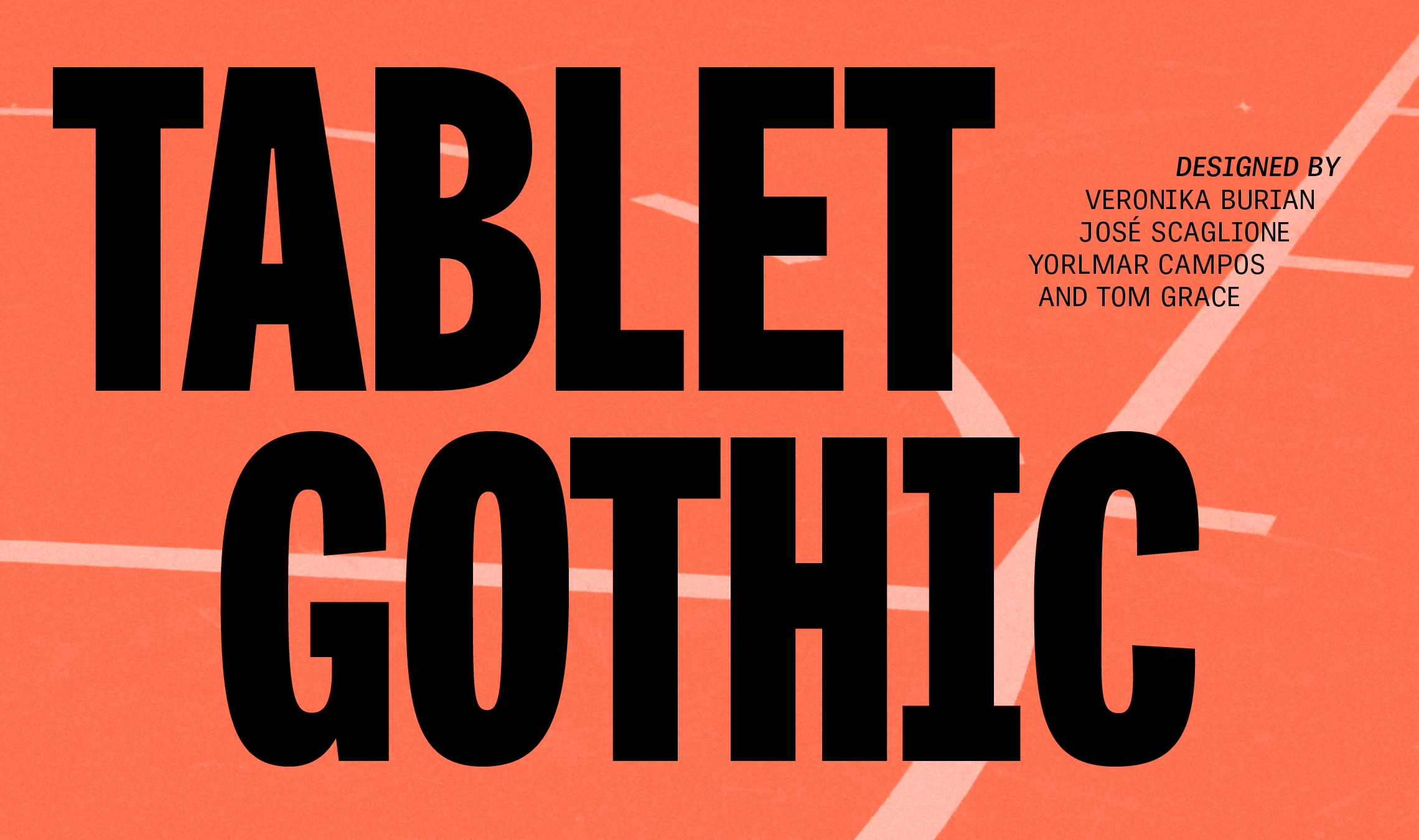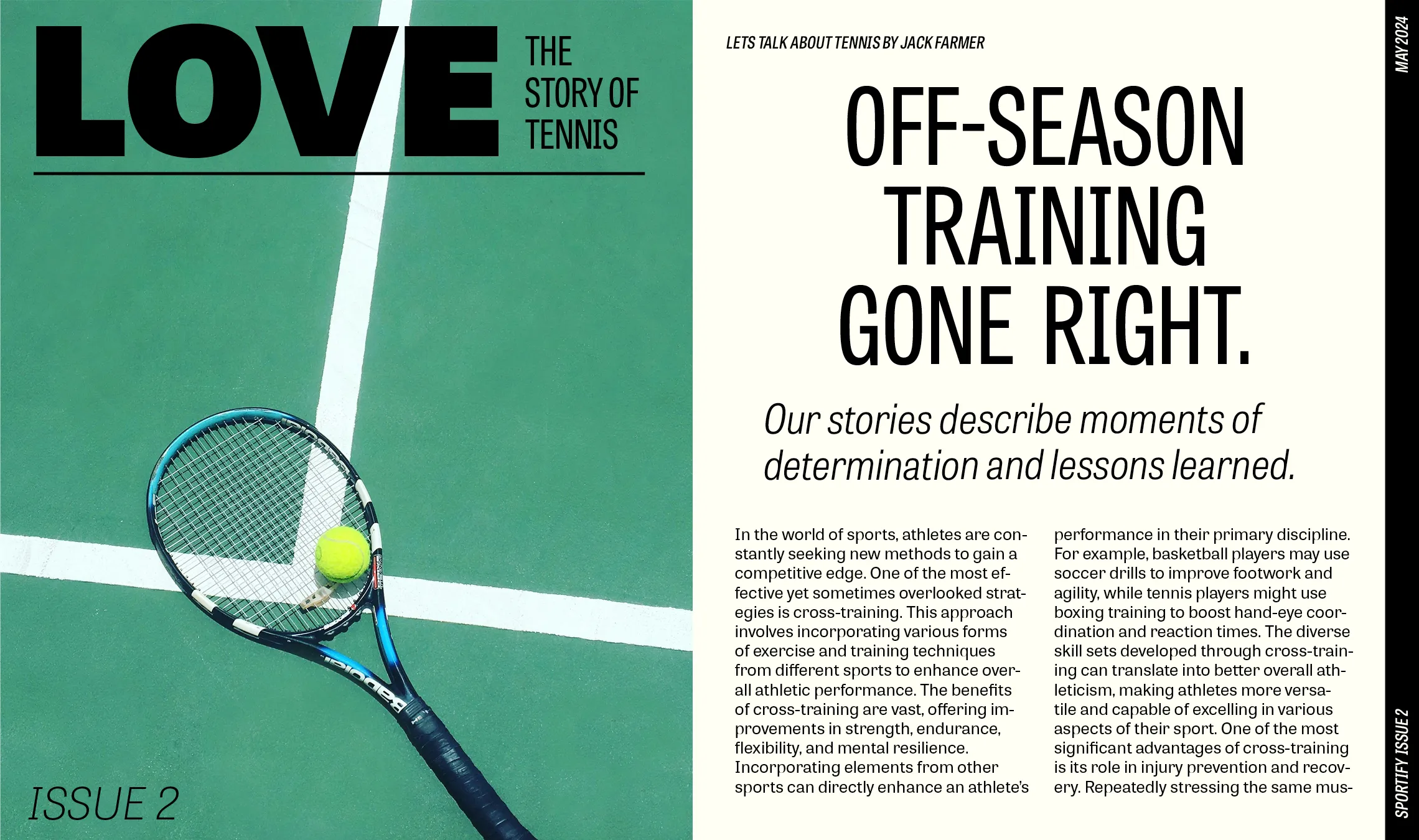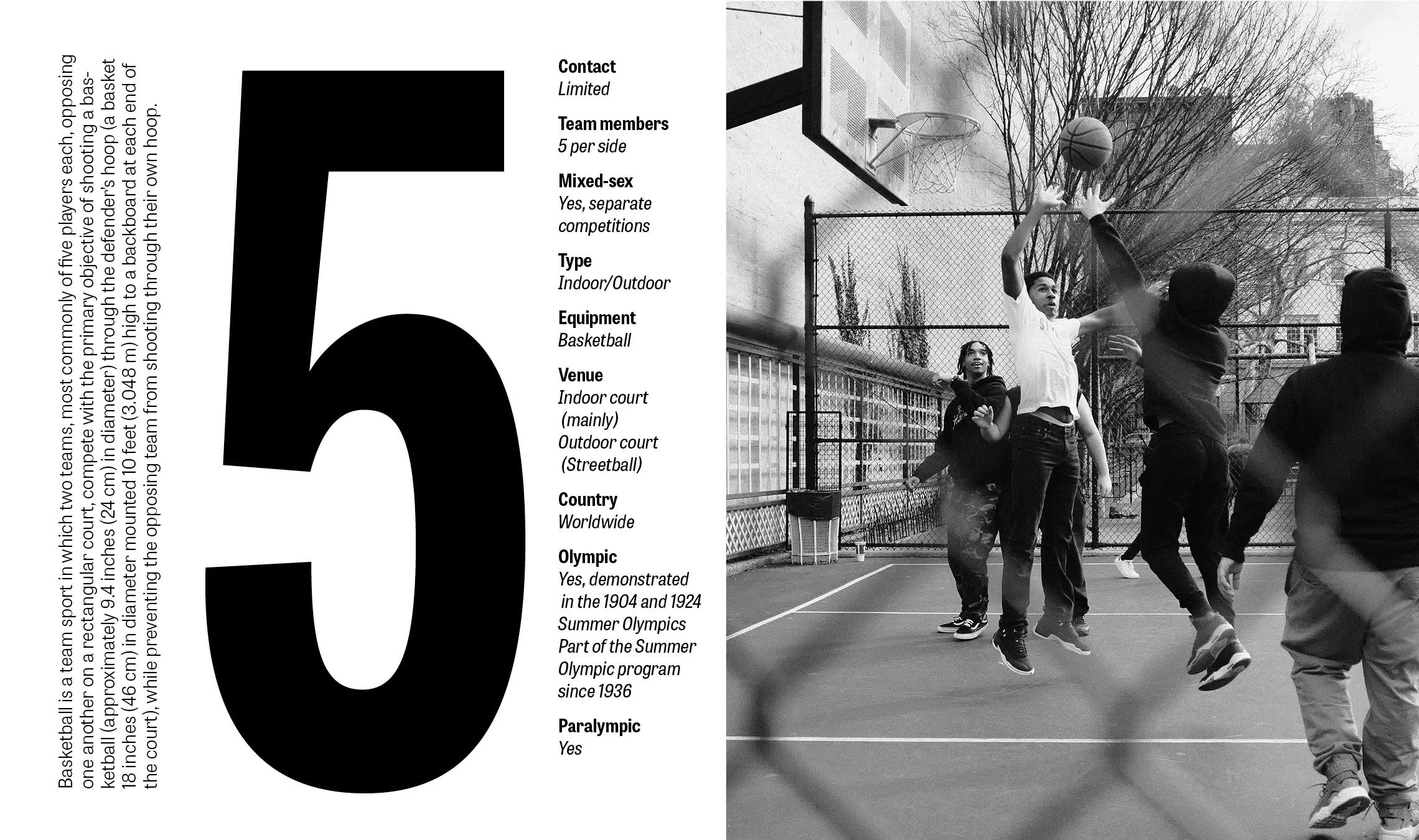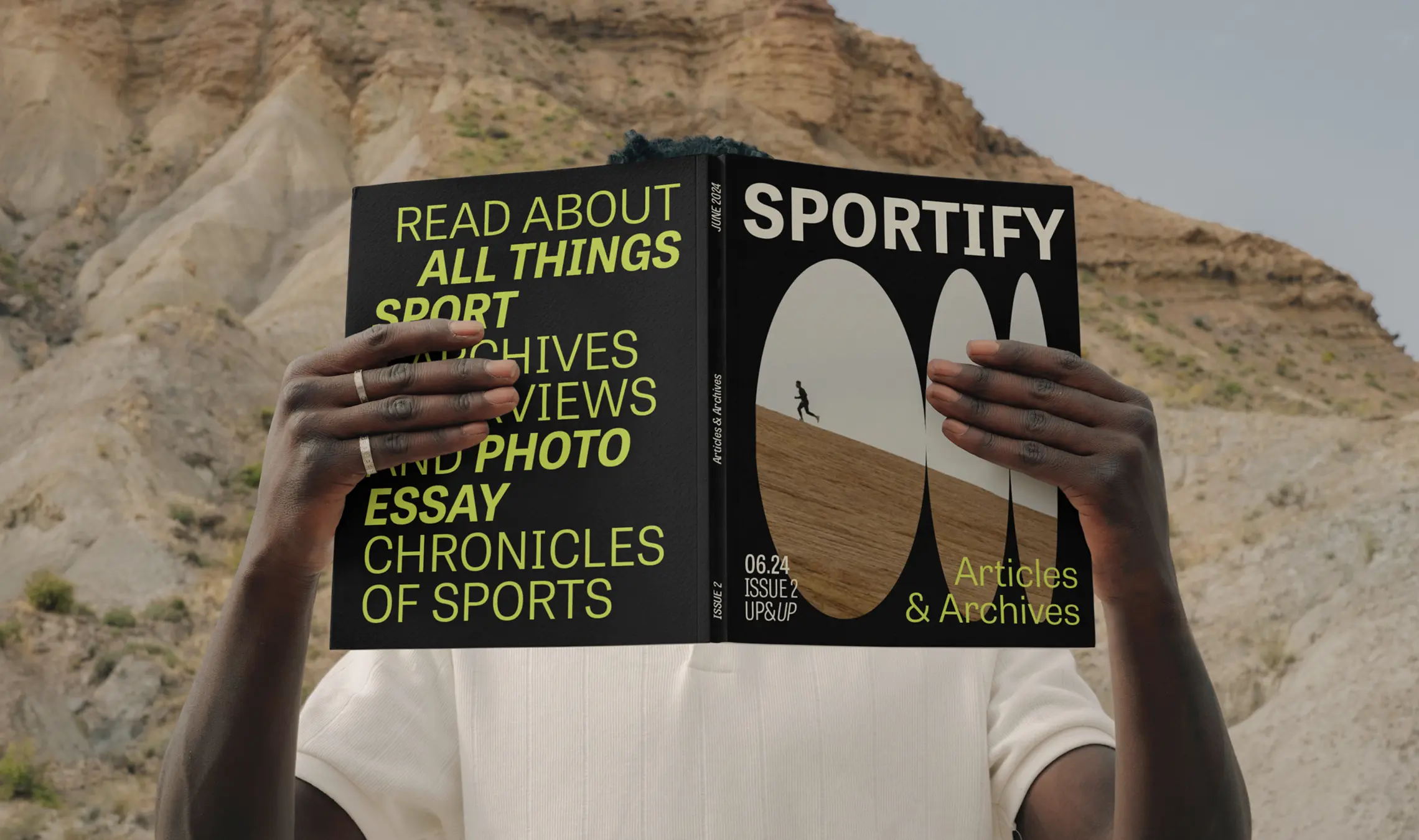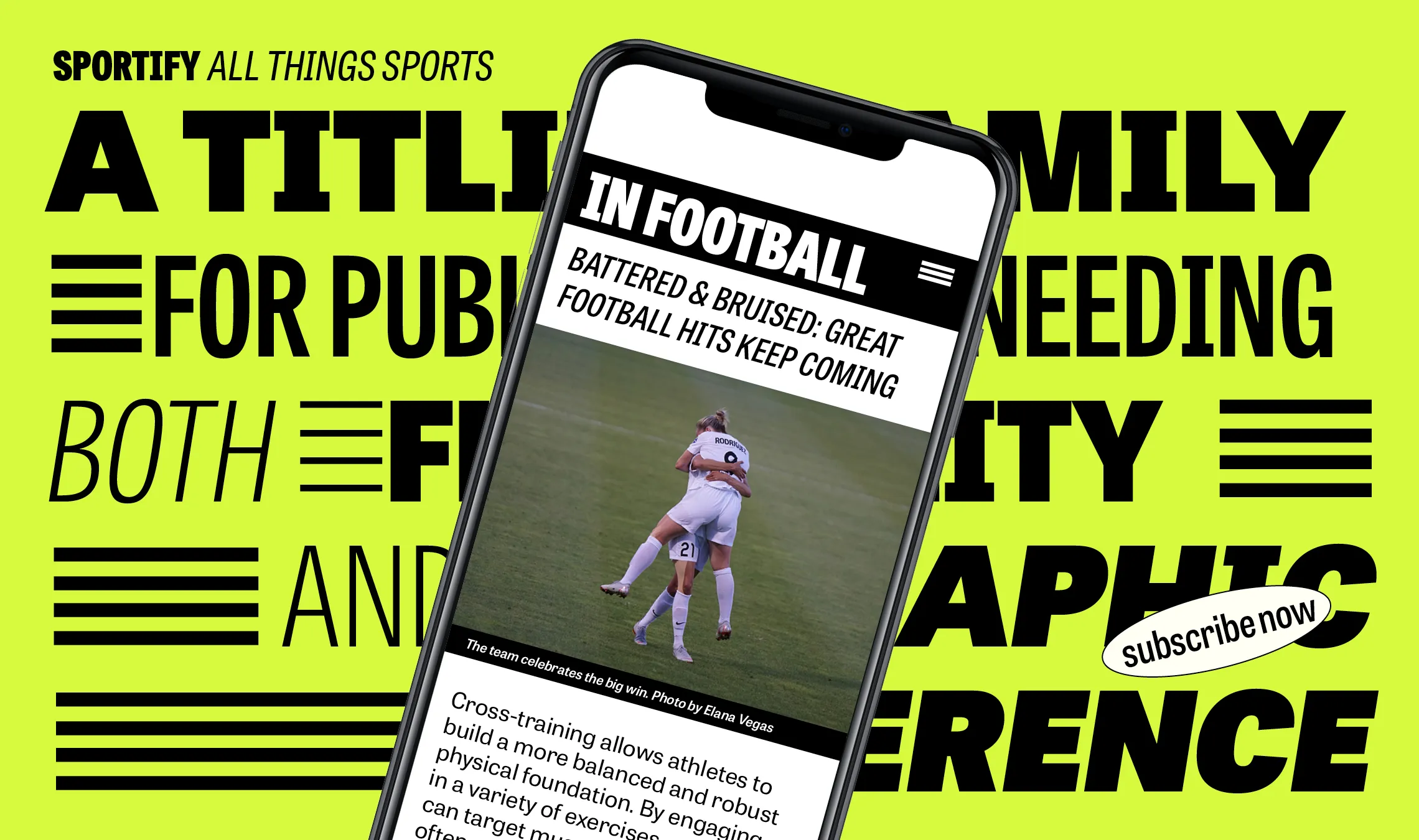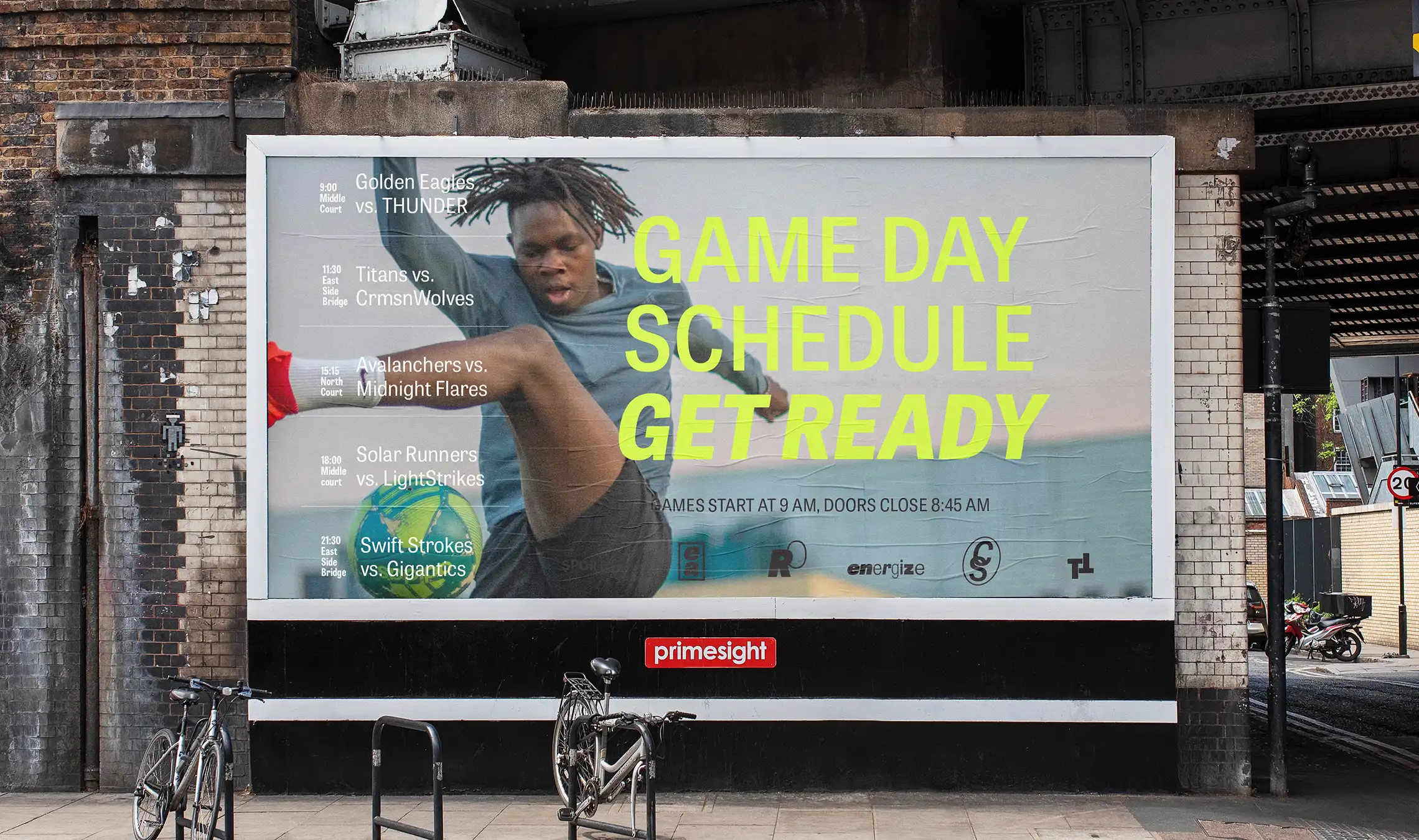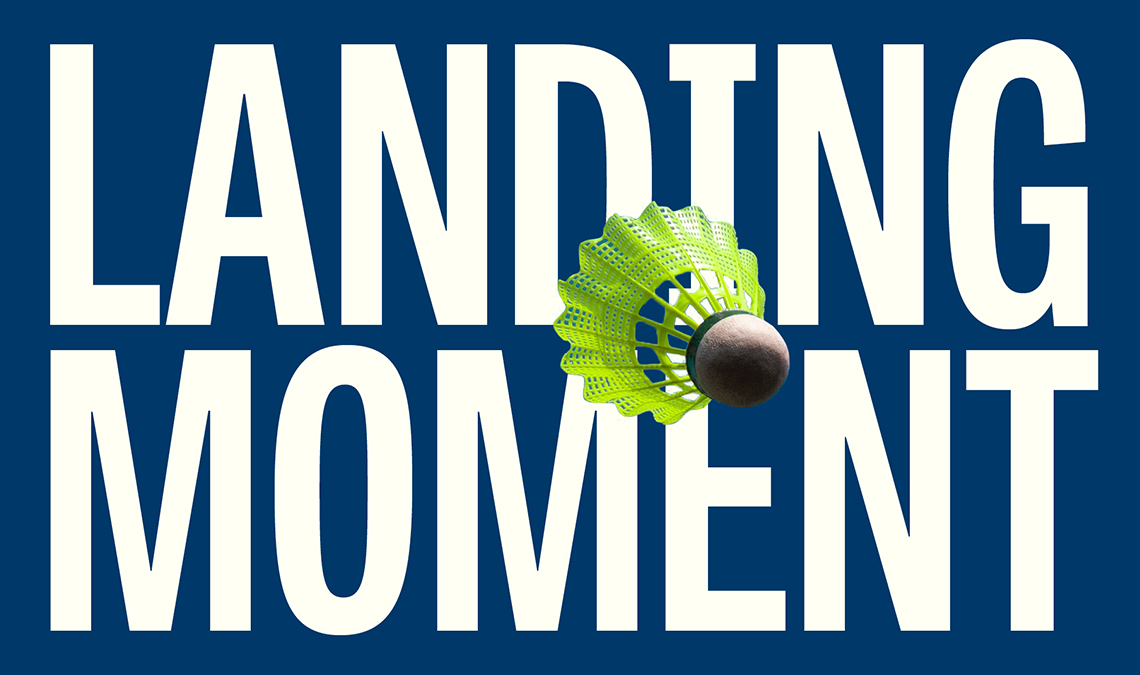
Tablet Gothic: major update, free
We are proud to announce a major expansion to Tablet Gothic! Twelve years ago we released this headliner family and it immediately made waves (and won awards) for its ability to speak with punch or with restraint due to its full-fledged widths and weights.
Today marks an expansion and refinement of the entire Tablet Gothic family. First up, we have remade the family from scratch with new master styles in the variable font format. This means the user can either choose from a static weight we have provided in OTF format or select any weight between the two extremes (Thin and Heavy) for a precise, dialed-in look. Tablet Gothic has almost-infinite variable styles or 84 predefined styles to choose from, so you’re guaranteed to find several that will work for your needs.
Second, we have almost doubled the character set from covering a respectable 140 languages to now include well over 200 languages, including Vietnamese which has been a standard part of our new release character set for years now. Third, some shapes have been slightly retooled to bring greater refinement and future-proofing to the entire family. So, because of all these new capabilities, we recommend upgrading for those who have the original family — and you can upgrade for free! Grab your new Tablet Gothic now.